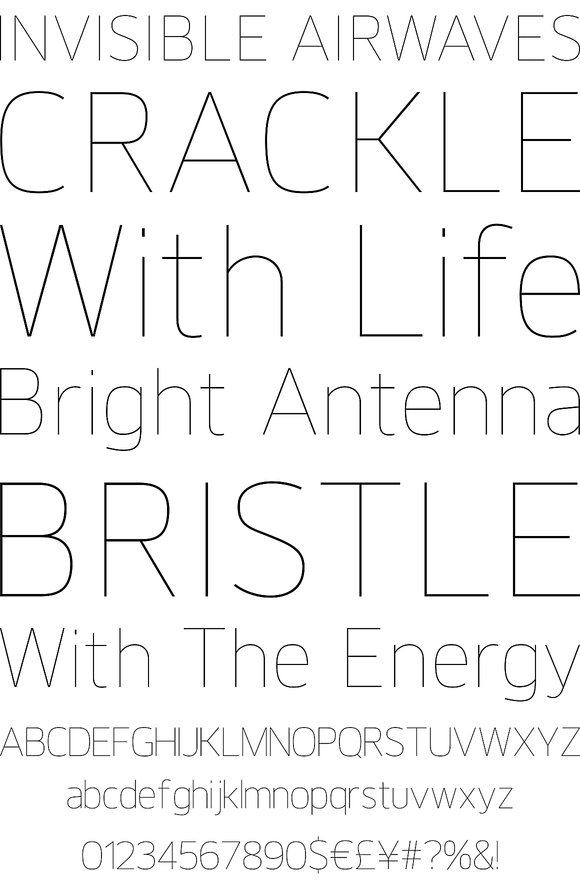
A strong, horizontal sans serif typeface. The letterforms distinct lateral emphasis combined with condensed proportions helps improve readability and use of space across layouts. Ideally suited for a wide range of modern applications, details include 9 weights with italics, 540 characters, 5 variations of numerals, manually edited kerning and Opentype features.